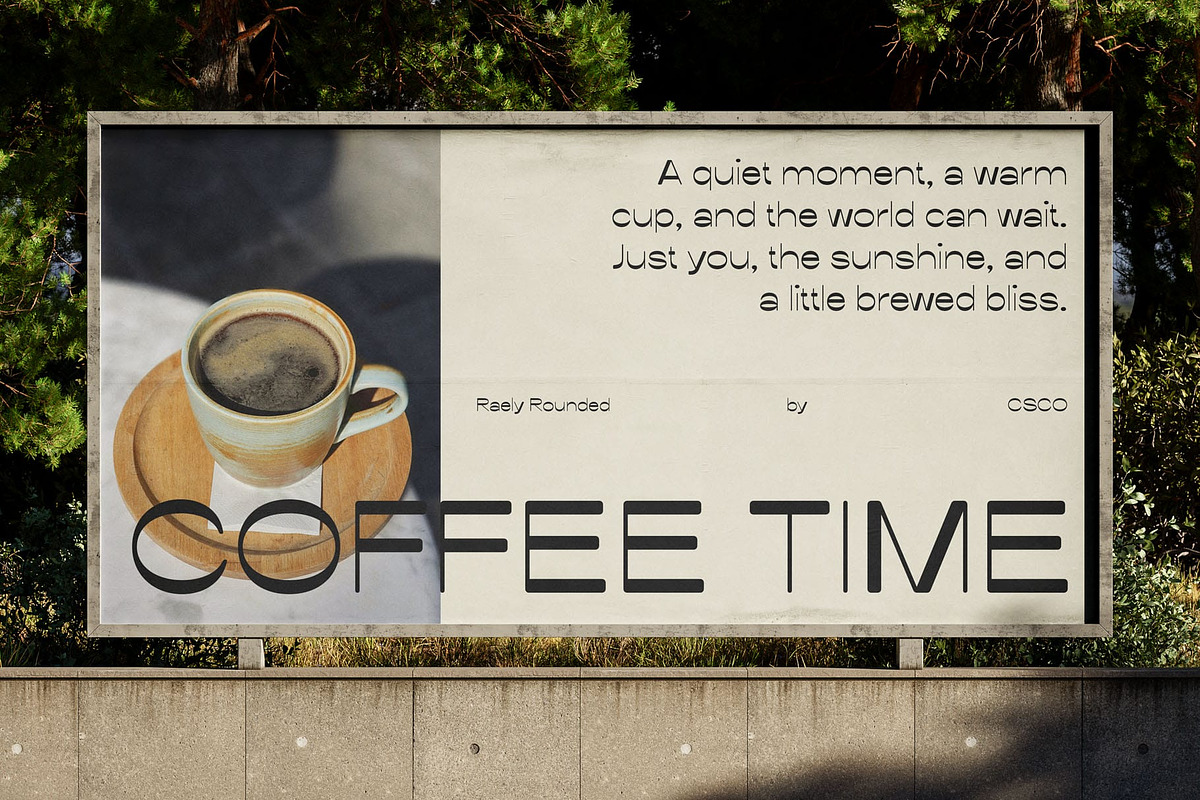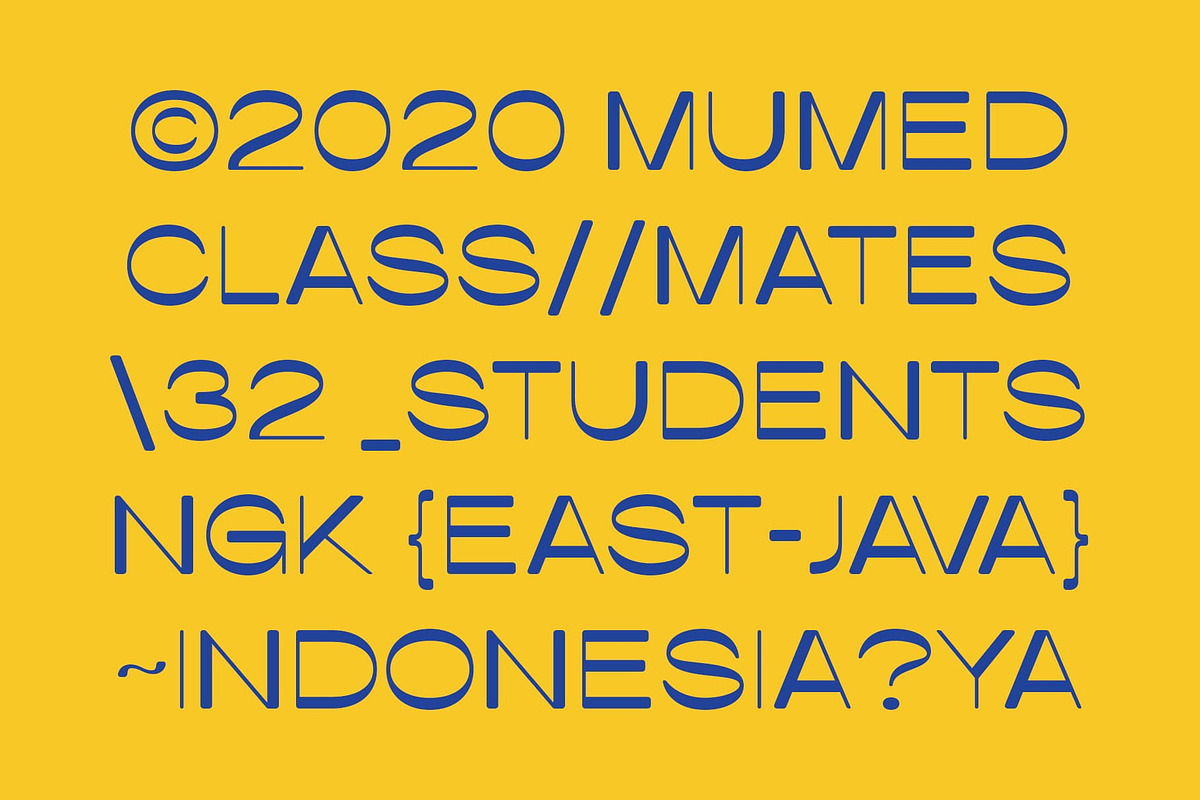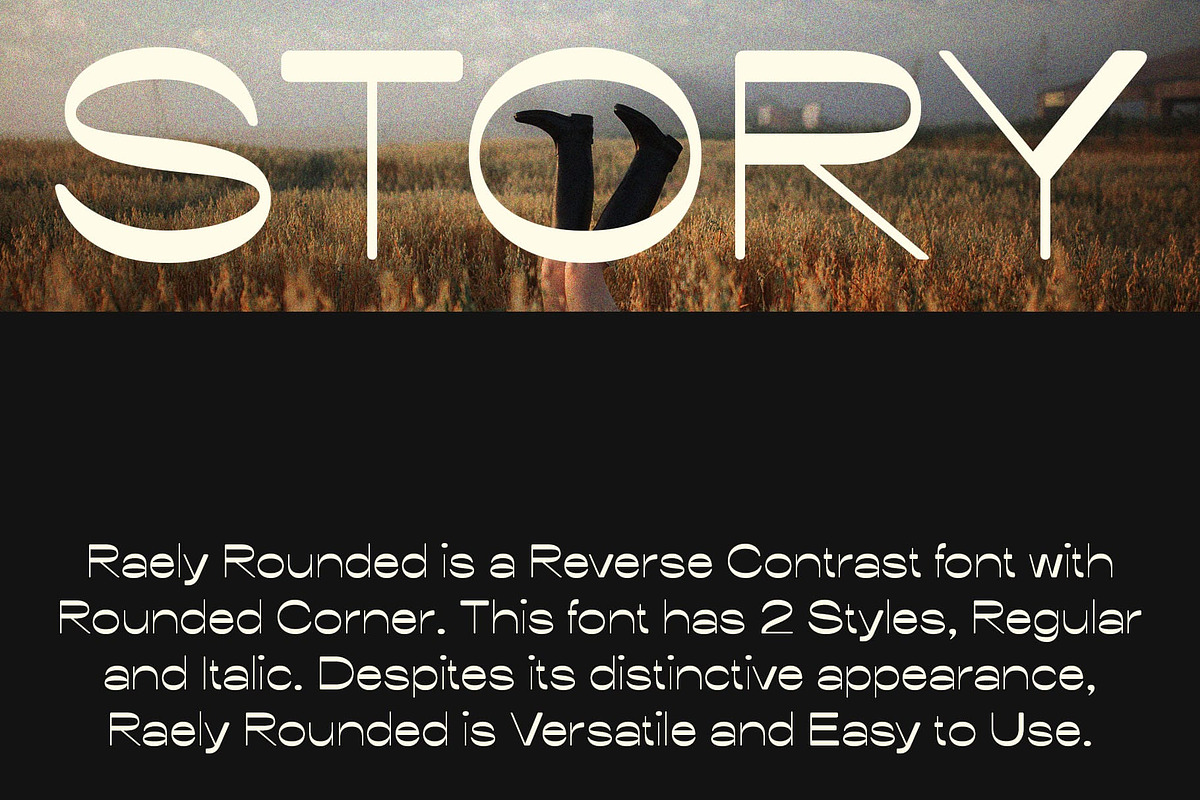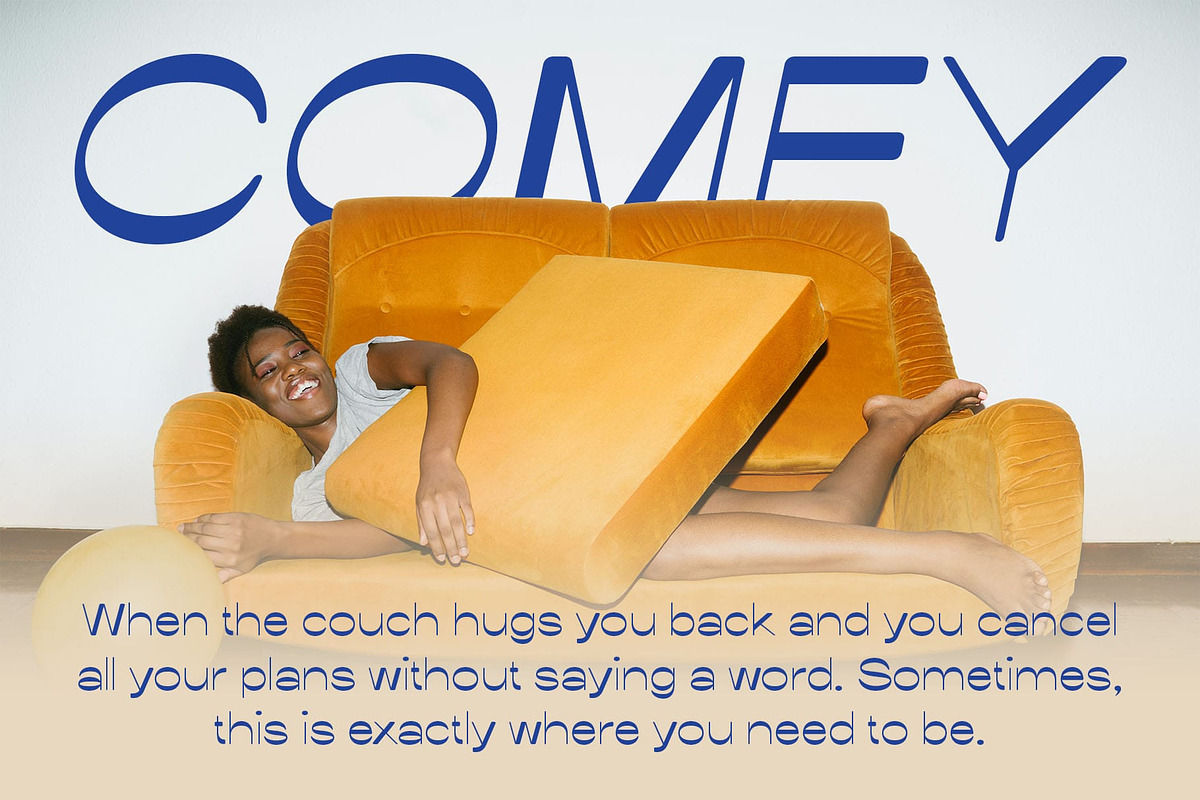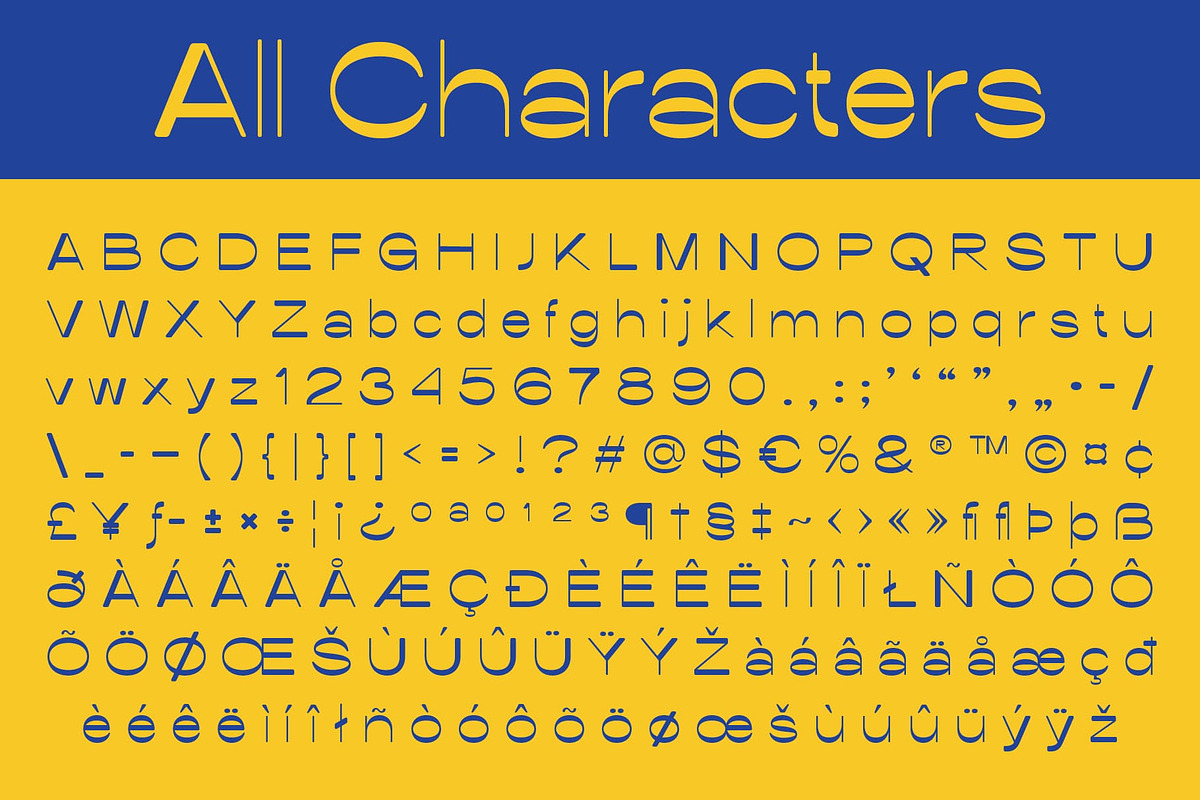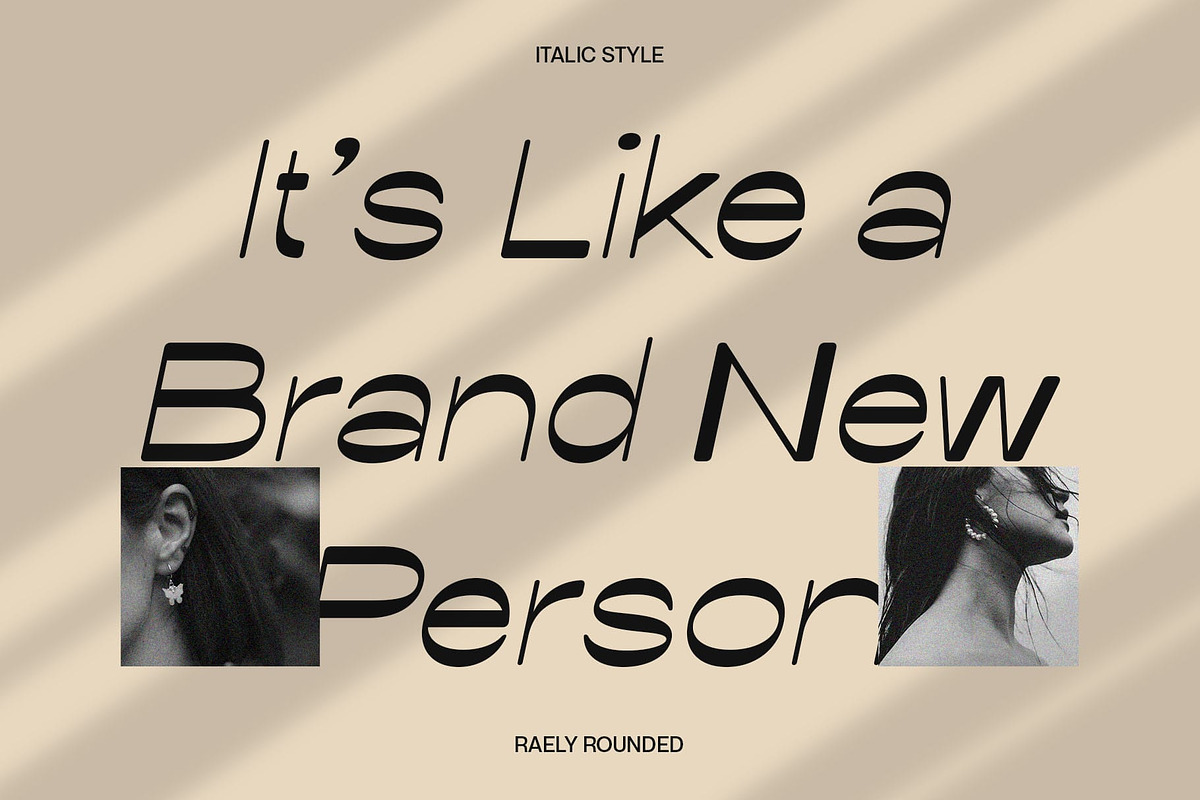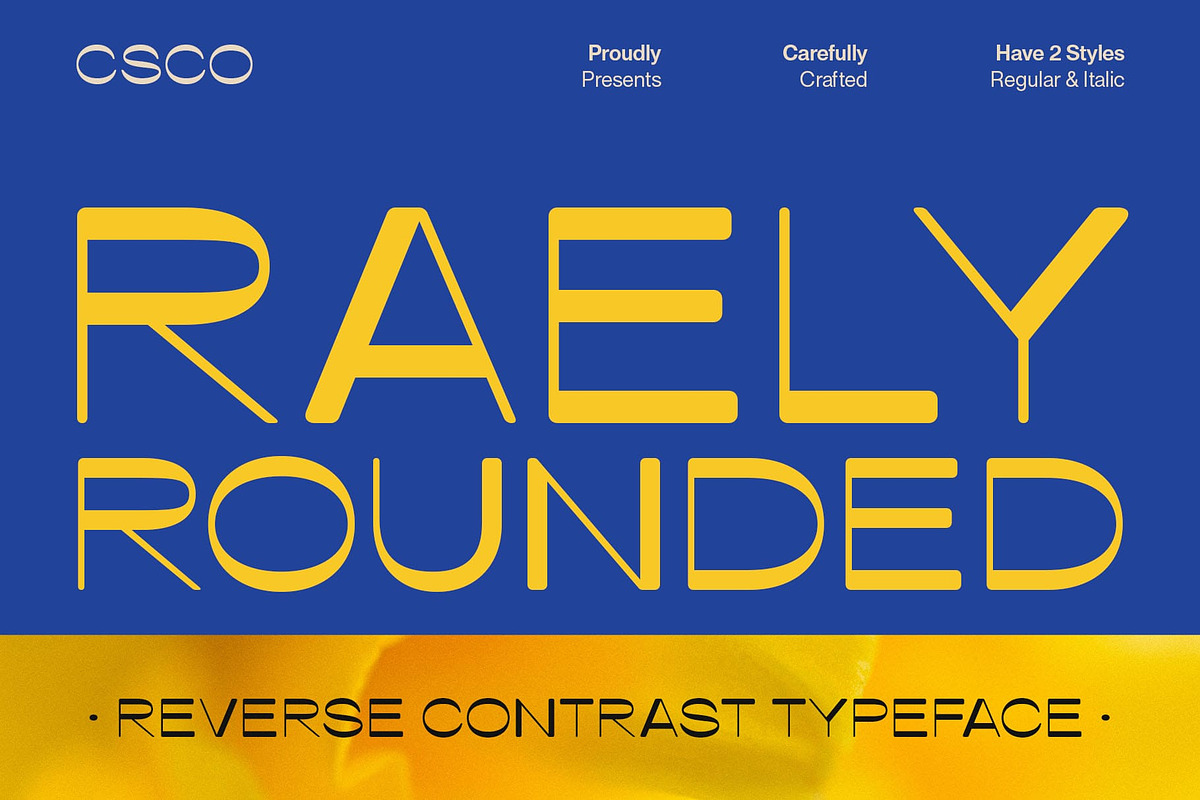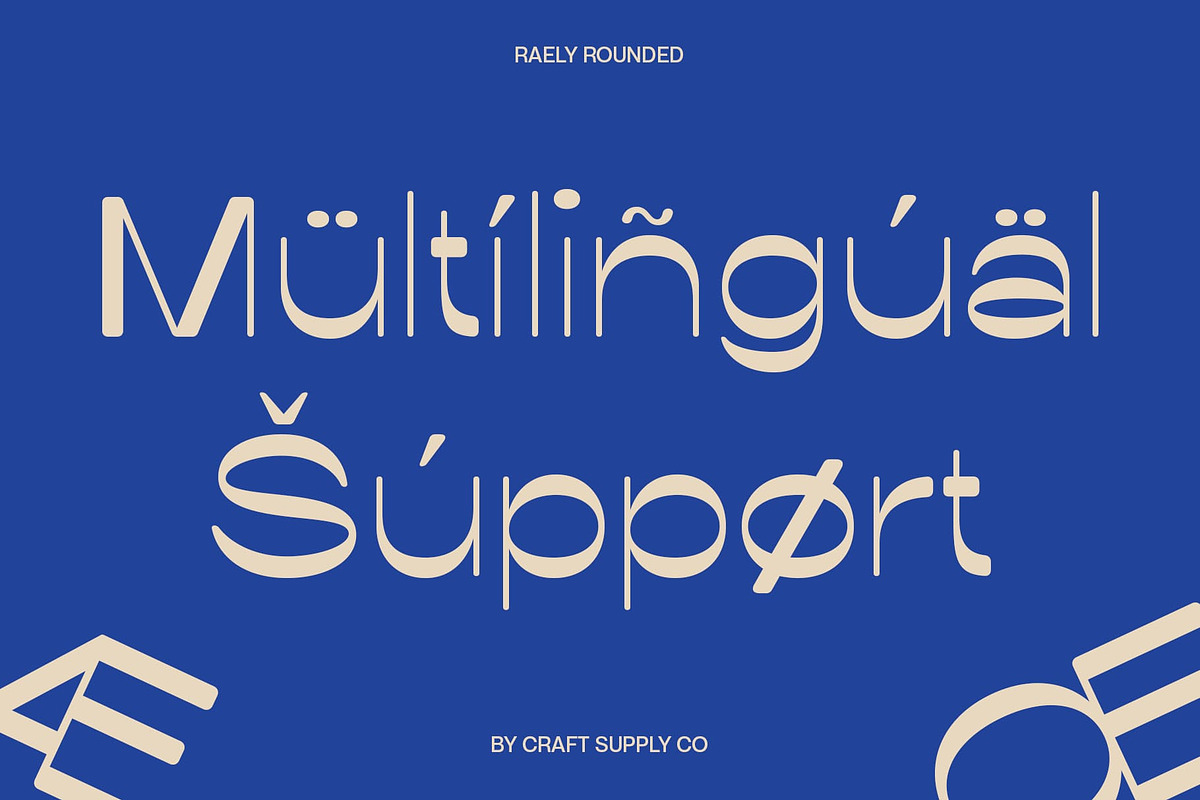
Raely Rounded
Raely Rounded Font – Retro Funk Meets Modern Elegance
Thin Lines with a Unique Reverse Contrast Raely Rounded is a sans serif font that stands out with its delicate thin strokes combined with a distinctive reverse contrast, where the usual thick and thin parts of letters are inverted. This uncommon feature adds visual intrigue and a dynamic rhythm to the typeface, balancing refinement with bold personality.
Soft Rounded Corners for Warmth and Approachability The gentle, rounded corners soften the font’s overall look, giving it a friendly, approachable feel. This subtle softness contrasts beautifully with the sharpness of the reverse contrast, creating an engaging interplay of shapes that captures attention while remaining easy on the eyes.
Cheerful Retro Funk Vibe with Contemporary Flair Raely Rounded effortlessly blends vintage charm with modern sensibilities, embodying a retro funky spirit that feels fresh and lively. Its nostalgic yet contemporary style makes it perfect for projects that want to evoke joy, creativity, and originality without sacrificing sophistication.
Ideal for Creative and Elegant Designs Perfect for branding, editorial layouts, packaging, and artistic projects, Raely Rounded delivers a unique, characterful appearance. Whether you’re aiming for a playful yet polished look or a stylish nod to the past, this font adds elegance and personality to your creative work.